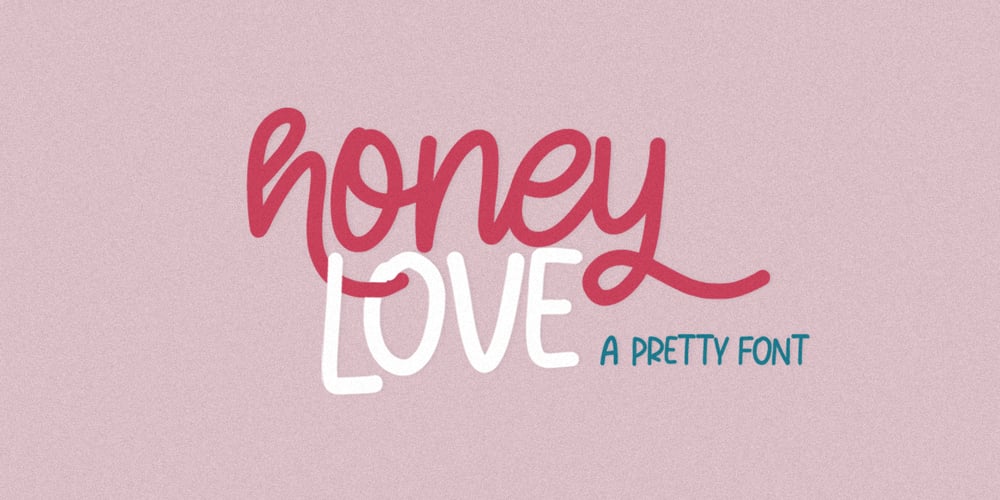
Honey Love Font Family was designed by Mauli Zari and published by Dhan Studio. Honey Love contains 1 styles and family package options. Honey Love is a pretty font that has a unique and attractive style, this font also has a lovely alternatives, which will make your designs even more perfect if you want to mix them in each of your designs.Perfect for logos and quotes or you can use it in any design you want to use.